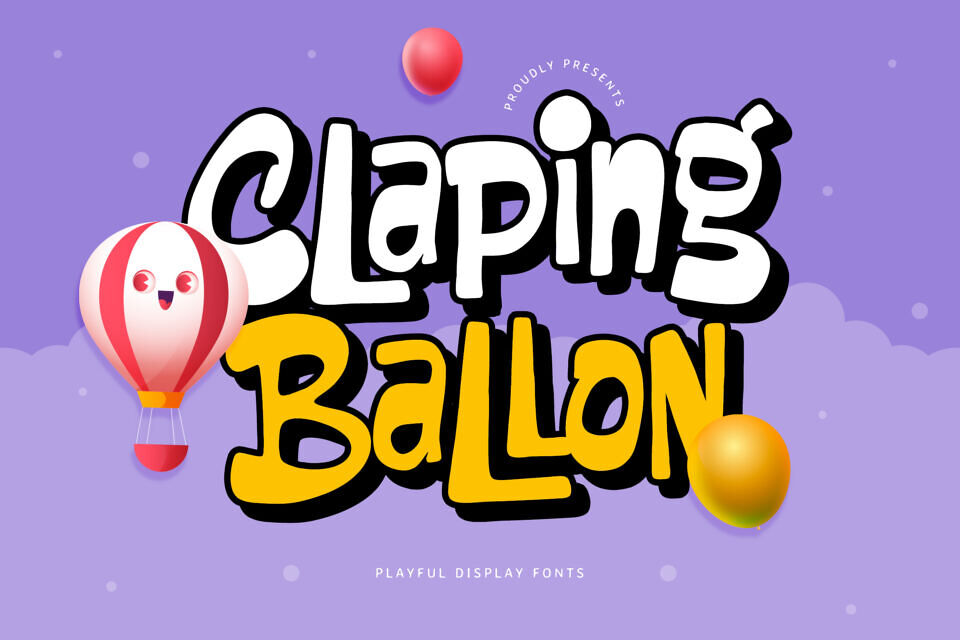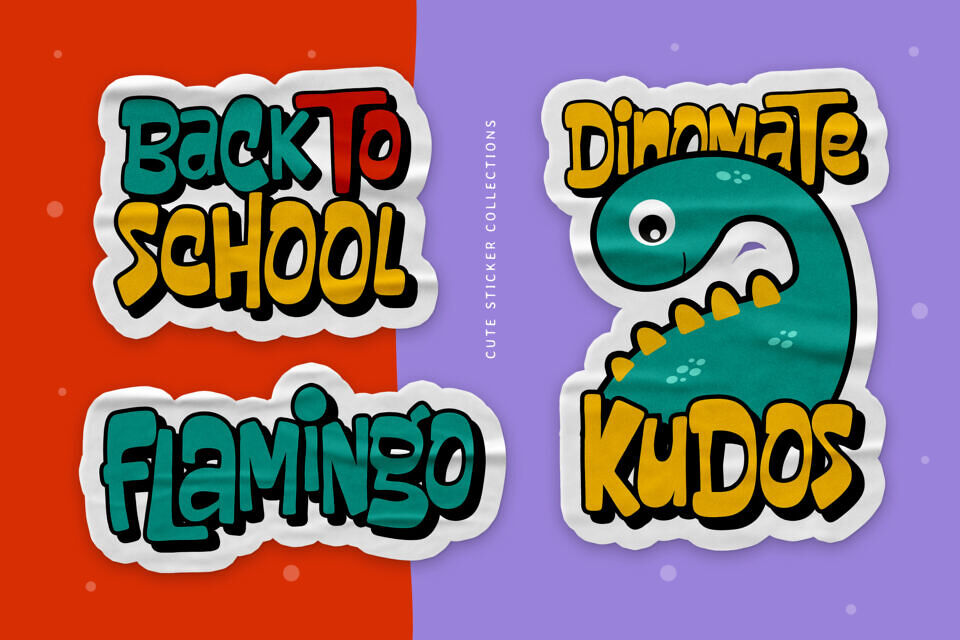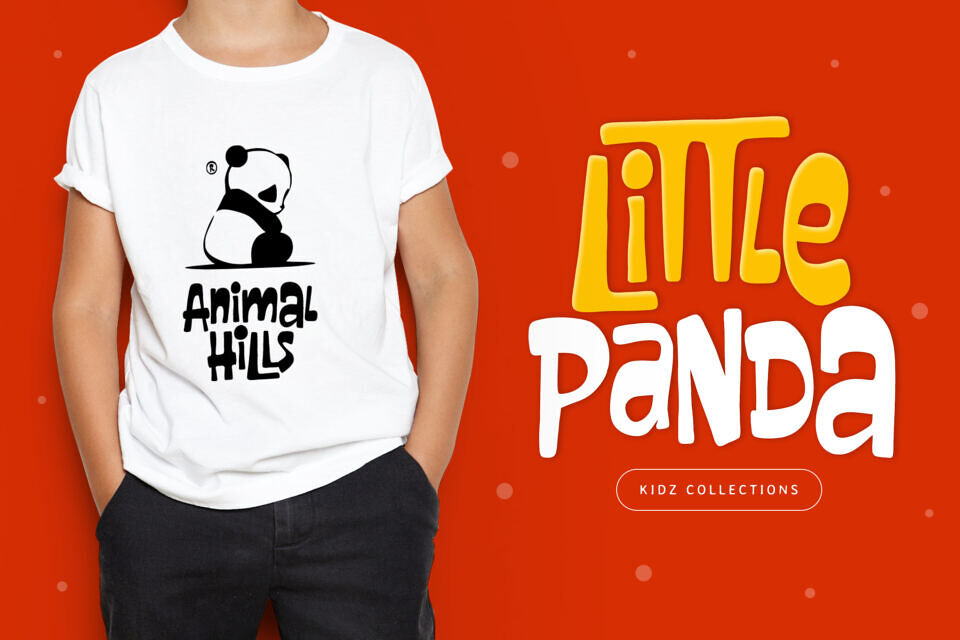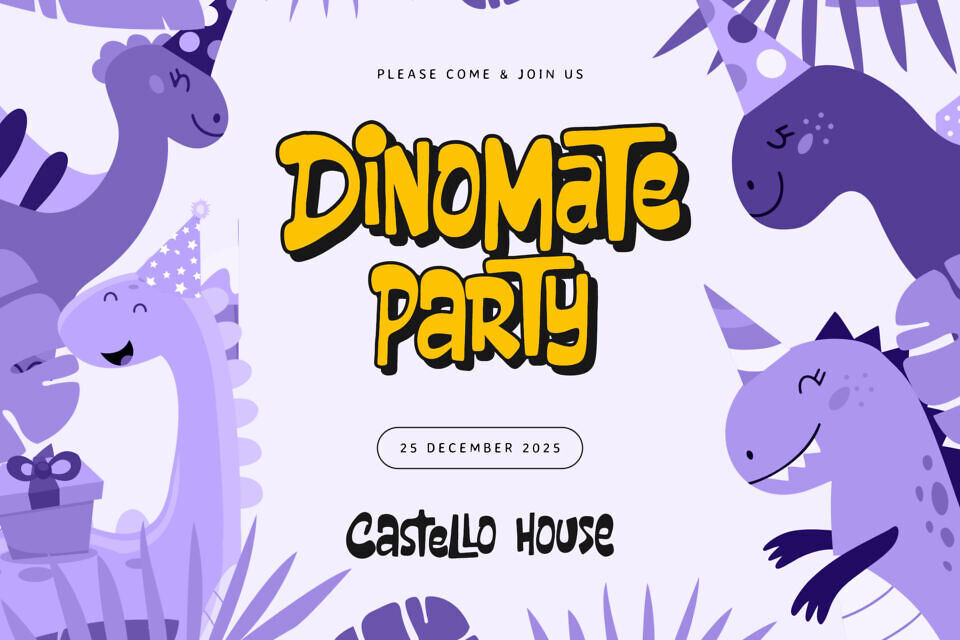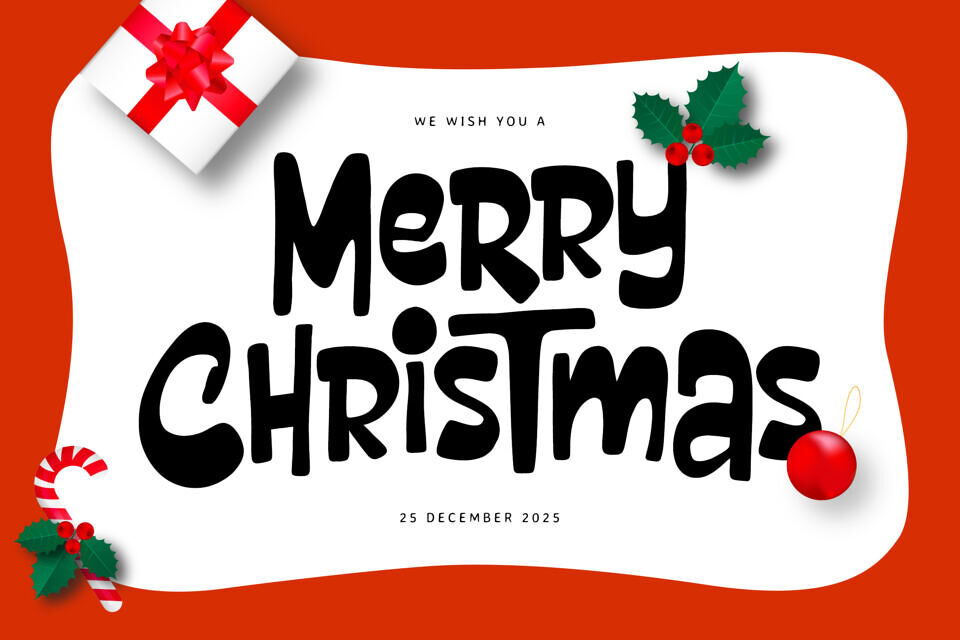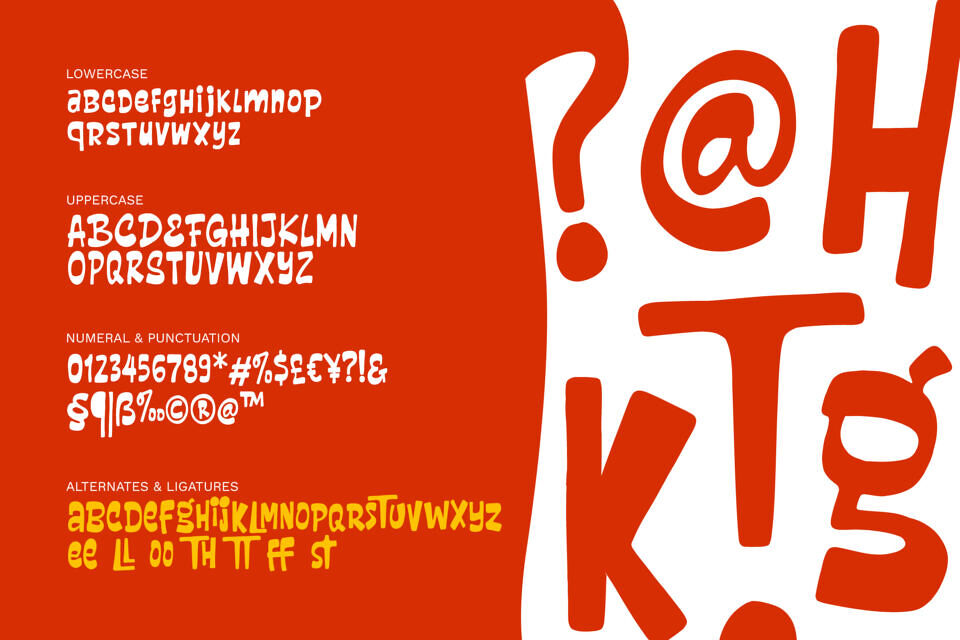
Claping Ballon Font
Claping Ballon is a playful display font with bold, rounded, and friendly letterforms. This fun cartoon font is perfect for children’s designs, party invitations, greeting cards, posters, kids’ branding, and cheerful typography projects.
Inspired by balloons, celebrations, and cute illustration styles, Claping Ballon brings a happy and energetic mood to your designs. The font features a hand-crafted look while maintaining clean readability, making it ideal for both print and digital use.